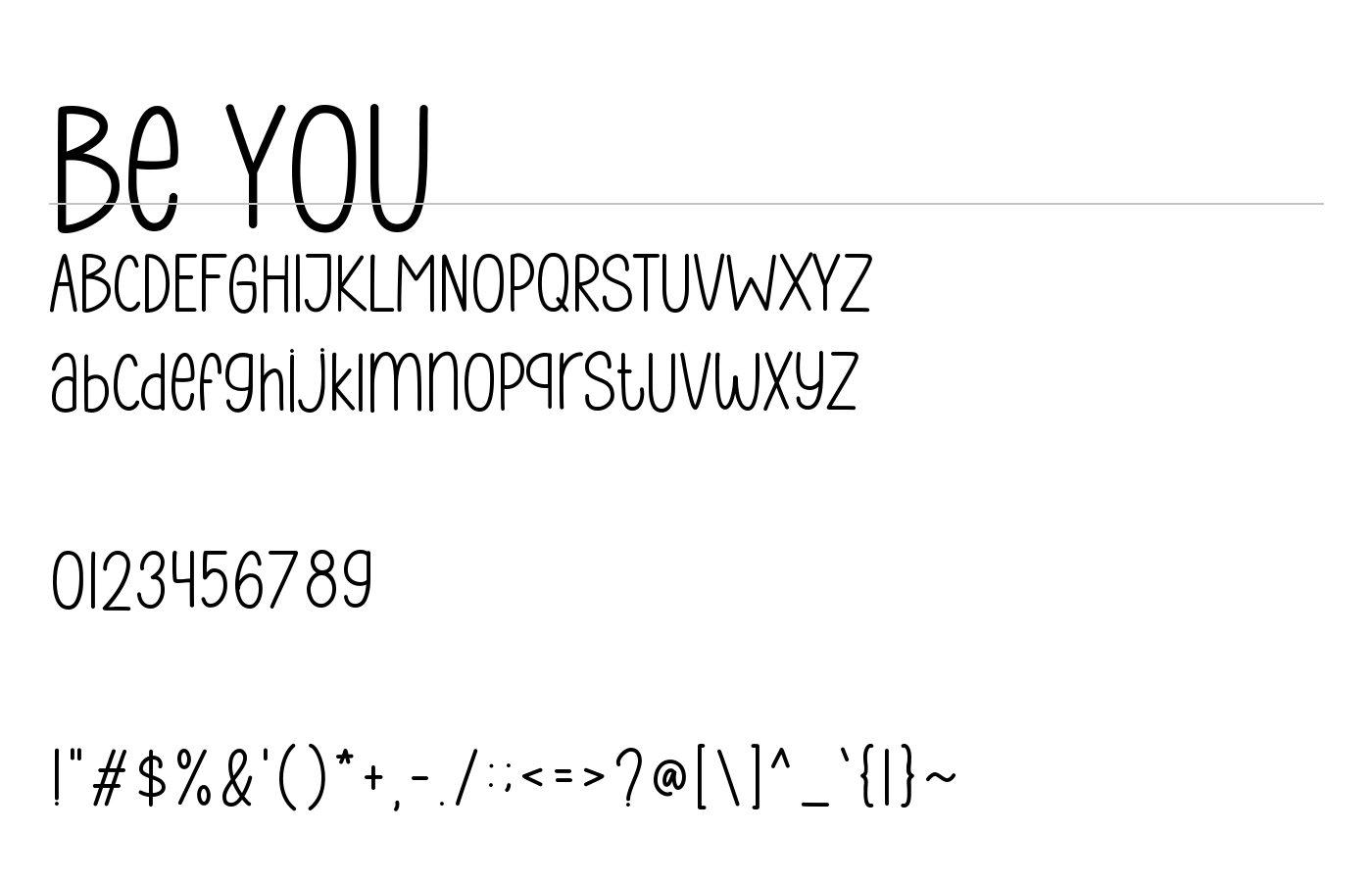
Be You Font is a playful and casual sans serif typeface characterized by its tall, narrow letters and hand-drawn style. With its light weight, low contrast strokes, and quirky shapes, it conveys a friendly, approachable vibe perfect for informal projects such as children’s books, creative branding, and fun packaging. This font works well in headlines and short texts where a personal, whimsical touch is desired.
Be You Font
About Be You Font